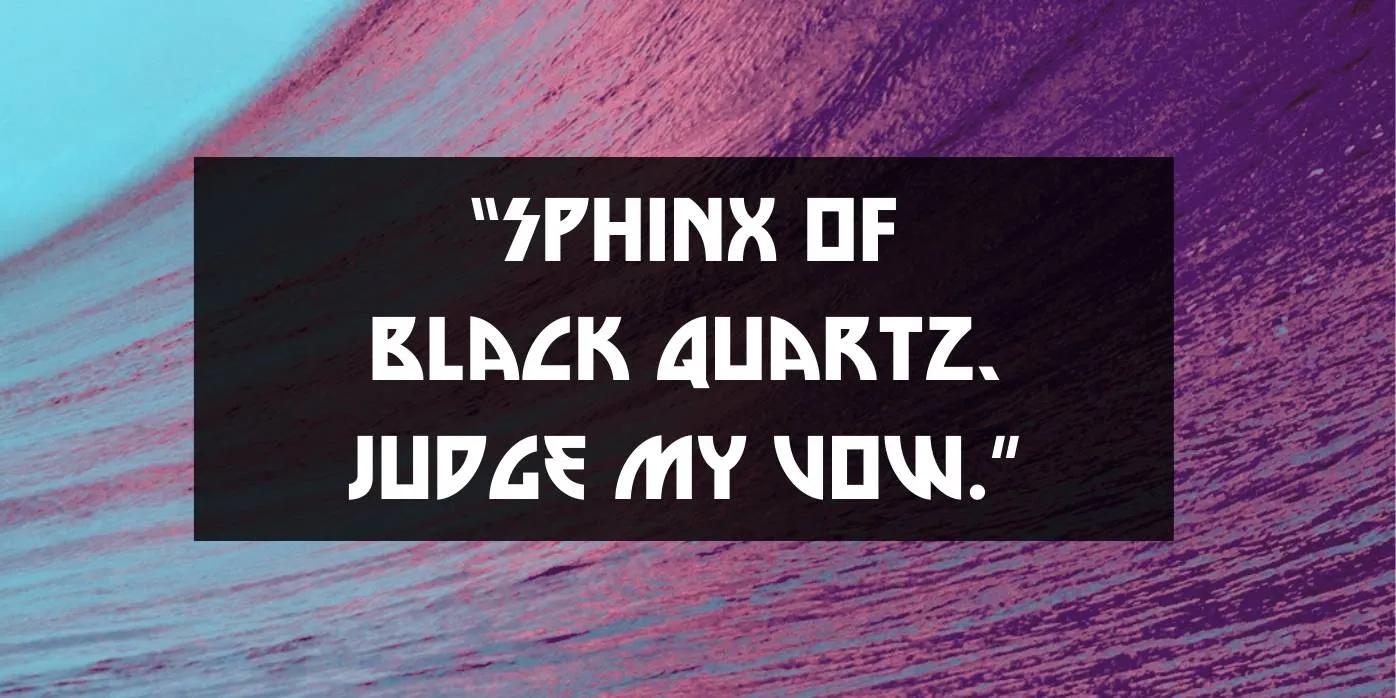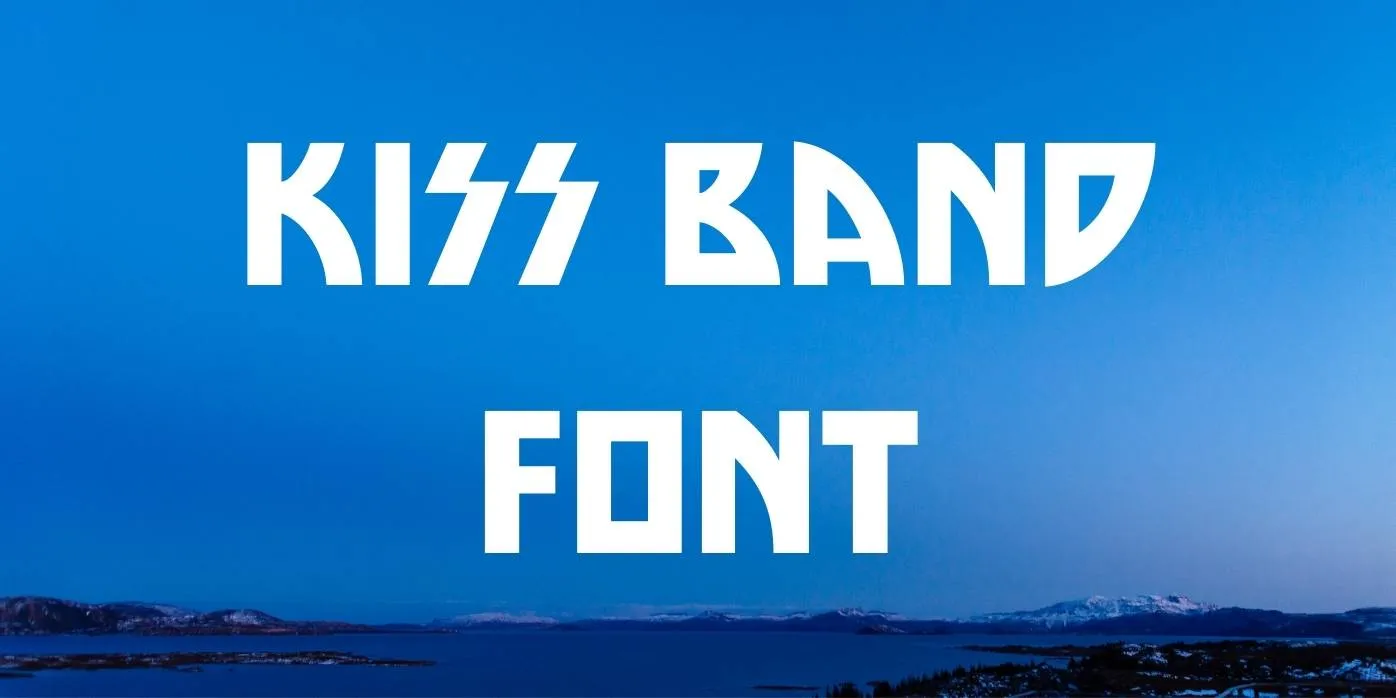
Kiss Band Font
Here, we present a tremendous and marvelous typeface that is Kiss Band Font. The main designer of this typeface Typodermic Fonts. It belongs to the Display typeface. This typeface is available in regular and TrueType format.
It was created on December 12, 2006. This typeface is famous for American Rock Band. Tommy Thayer, Gene Simmons, and Paul Stanley were the team of this band. This typeface was used for the Logo of this band.